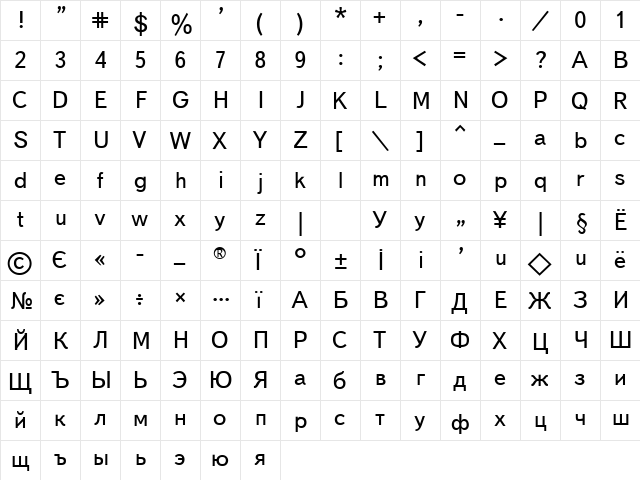
Uk_Bukvarnaya Medium
Design Context for Uk_Bukvarnaya Typeface
Uk_Bukvarnaya offers clean, dependable letterforms without strong stylistic allegiance, making it a practical choice for designers who need flexibility.